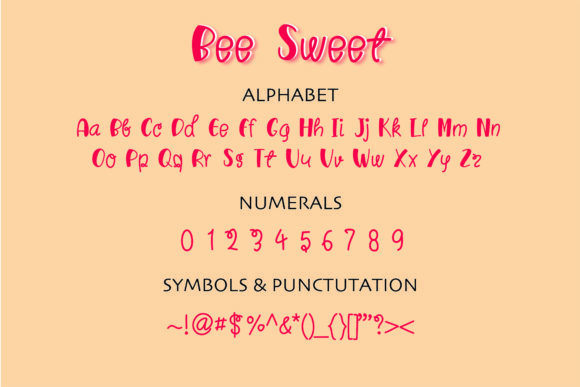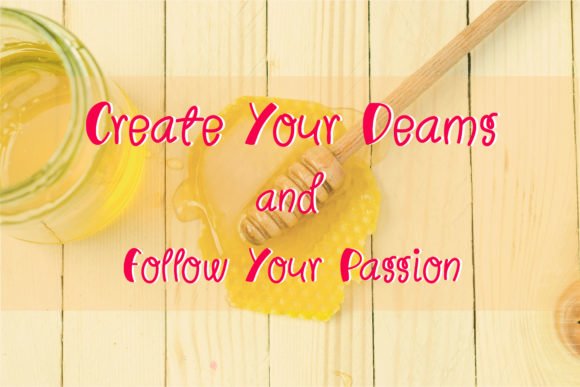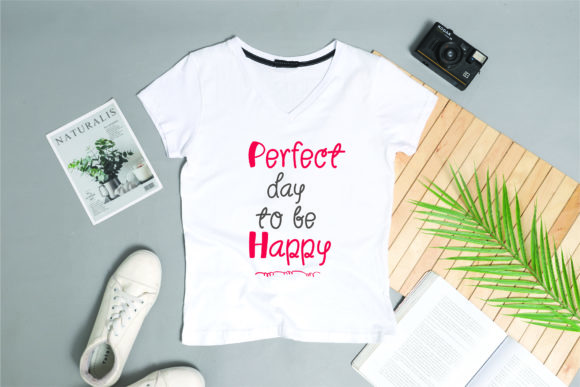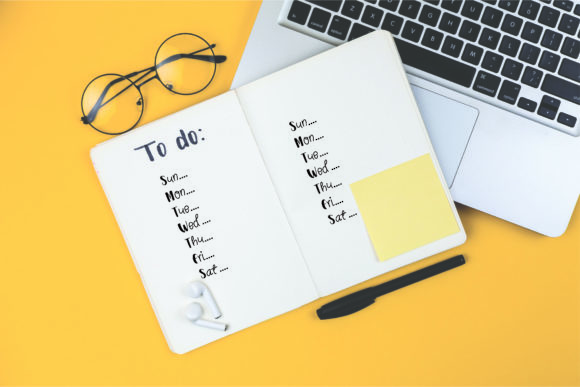
Bee Sweet Font: A Timeless Handwritten Font for Your Creative Projects
Are you a designer or crafter looking for a font that can add a touch of elegance and whimsy to your creative projects? Look no further than the Bee Sweet Font! This lovely and timeless handwritten font is perfect for creating eye-catching logos, branding, and quotes that will make your design come alive.
What Makes Bee Sweet Font So Special?
The Bee Sweet Font is a unique and beautiful font that is sure to capture the attention of your audience. Every letter has a distinctive and lovely touch that sets it apart from other fonts. The font’s handwritten style gives it a personal and approachable feel, making it perfect for projects that require a touch of warmth and personality.
The Bee Sweet Font is an excellent choice for creating logos, branding, and quotes that will make your design stand out. Its elegant and cursive style makes it perfect for projects that require a touch of sophistication and elegance. Whether you’re creating a logo for a new business or designing a quote for social media, the Bee Sweet Font is sure to impress.
Unique and Beautiful Touch
One of the standout features of the Bee Sweet Font is its unique and beautiful touch. Every letter is carefully crafted to ensure that it has a distinctive and lovely feel that will make your design come alive. The font’s unique touch is sure to capture the attention of your audience and leave a lasting impression.
Why Designers and Crafters Love Bee Sweet Font
Designers and crafters love the Bee Sweet Font for its versatility and ease of use. The font is perfect for a wide range of projects, from logos and branding to quotes and social media graphics. Its handwritten style makes it easy to pair with other fonts, and its elegant style ensures that it will complement any design.
Tips for Using Bee Sweet Font
Here are a few tips for using the Bee Sweet Font in your creative projects:
- Use it for logos and branding to add a touch of elegance and sophistication.
- Pair it with other fonts to create a unique and eye-catching design.
- Use it for quotes and social media graphics to add a touch of personality and whimsy.
- Experiment with different colors and textures to make the font truly pop.
In conclusion, the Bee Sweet Font is a lovely and timeless handwritten font that is perfect for designers and crafters looking to add a touch of elegance and whimsy to their creative projects. Its unique and beautiful touch, elegant style, and versatility make it an excellent choice for a wide range of projects. Whether you’re creating a logo, branding, or quotes, the Bee Sweet Font is sure to impress.